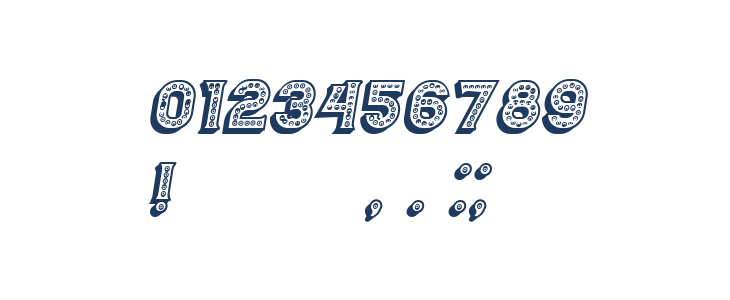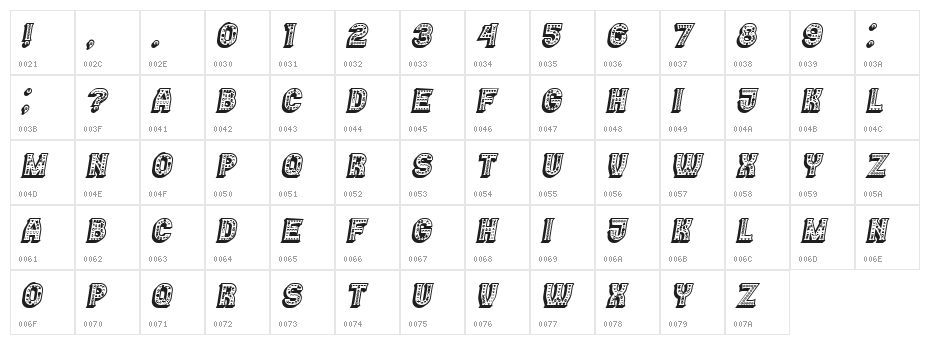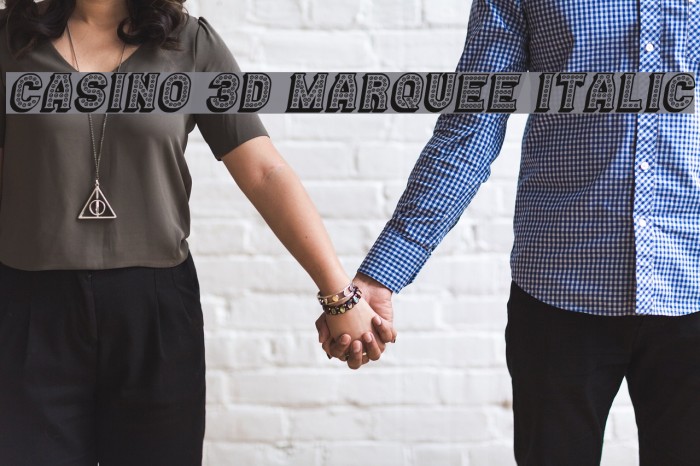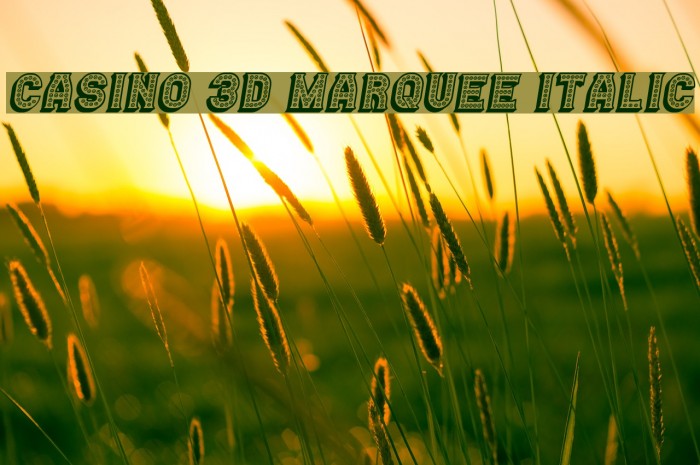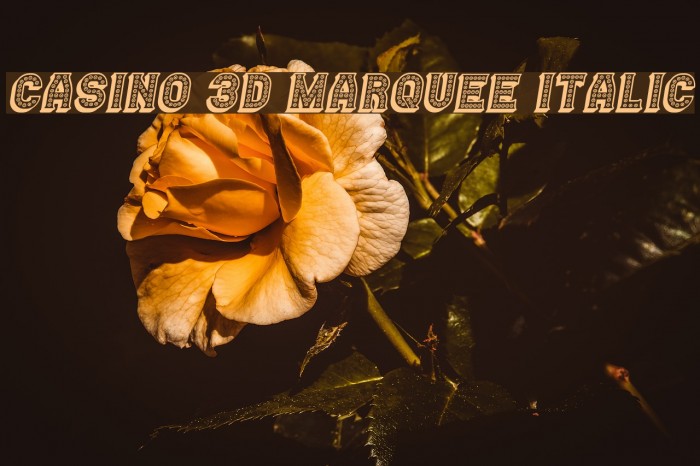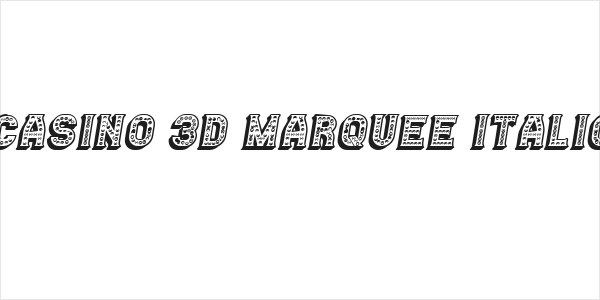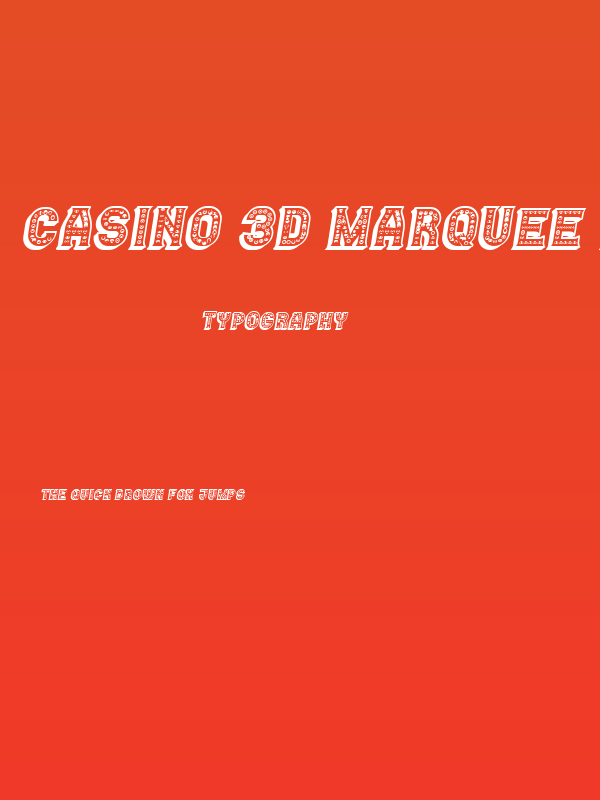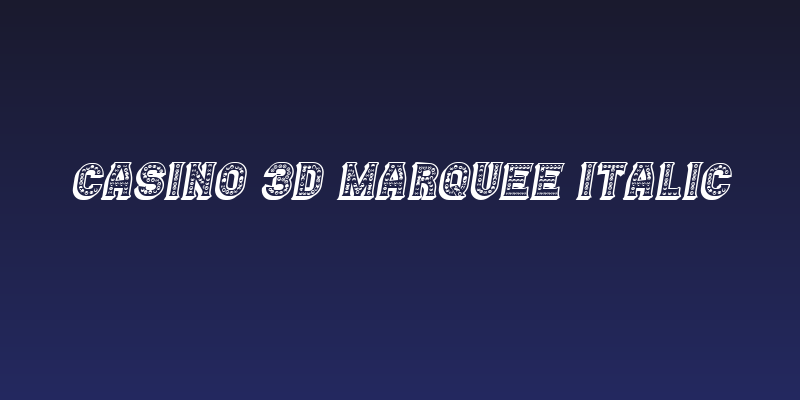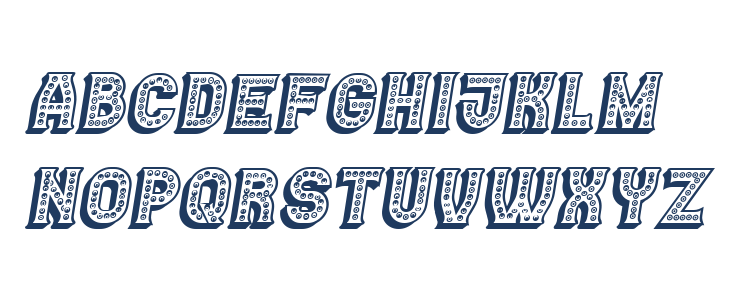
Casino 3D Marquee Italic Font
Casino 3D Marquee Italic Description
This font features a bold, three-dimensional marquee style reminiscent of classic casino signage. Each character is adorned with circular bulb-like patterns, creating a vibrant and eye-catching effect. The italic slant adds a dynamic and playful touch, enhancing its decorative appeal. The font's thick strokes and shadowing provide a sense of depth and dimension, making it ideal for standout displays. Its unique design captures the essence of vintage entertainment venues, combining nostalgia with a modern twist.
Overall StyleVintage
Proposed ProjectsIdeal for casino-themed events, retro posters, signage, and entertainment branding.